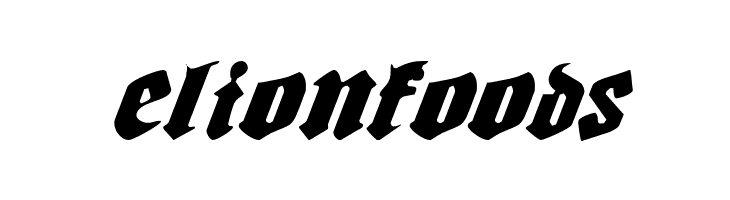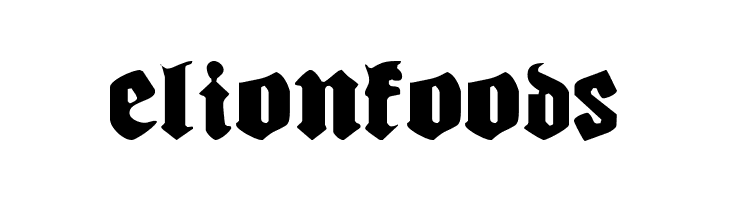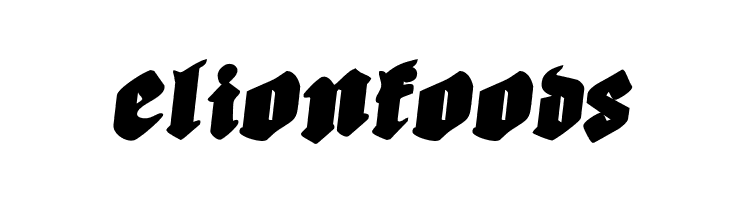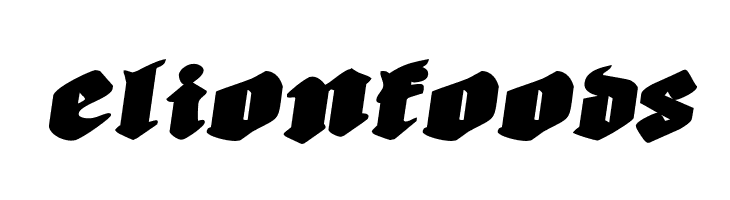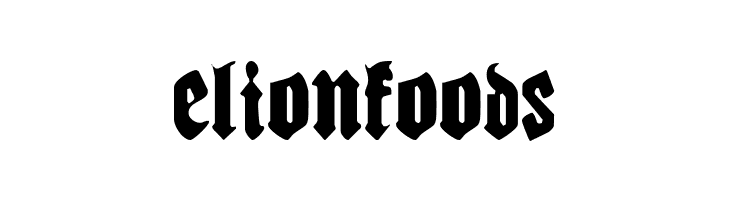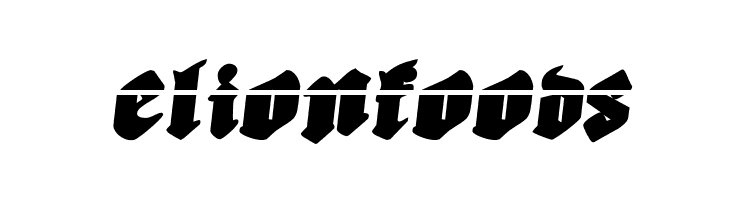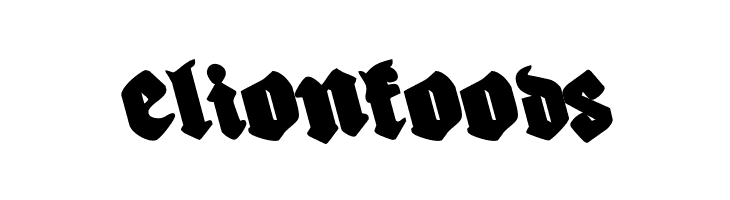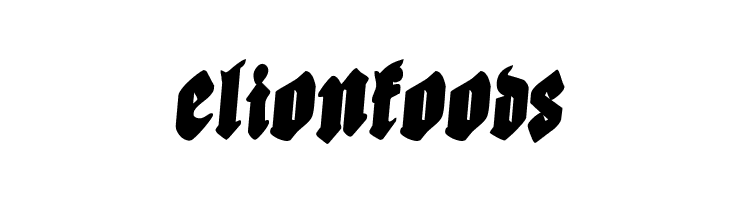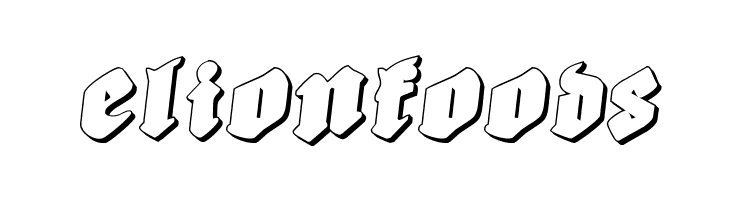
• Biergärten Light
A bold, blackletter font with a gothic, medieval style.
• Biergärten Light Condensed
A bold, condensed Blackletter font with intricate, angular letterforms.
• Biergärten Light Italic
A bold, italic Blackletter-style font with sharp, angular edges and high contrast.
• Biergärten Rotalic
A bold, dramatic Blackletter-style font with sharp, ornate details.
• Biergärten Rotalic Condensed
A bold, condensed blackletter font with a slight slant and ornate details.
• Biergärten Rotalic Expanded
A bold, expanded Blackletter font with an italic slant and tight spacing.
• Biergärten Rotalic Laser
A bold, modern blackletter font with sharp, angular characters.
• Biergärten Rotalic Shadow
A bold, shadowed font with a modern blackletter style.
• Biergärten Rotate
A bold, blackletter-style font with intricate, angular details.
• Biergärten Shadow
A bold, shadowed Blackletter style font with dramatic, angular lines.